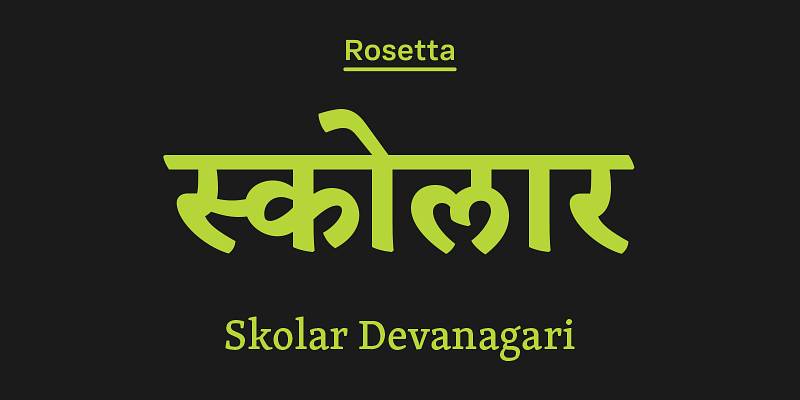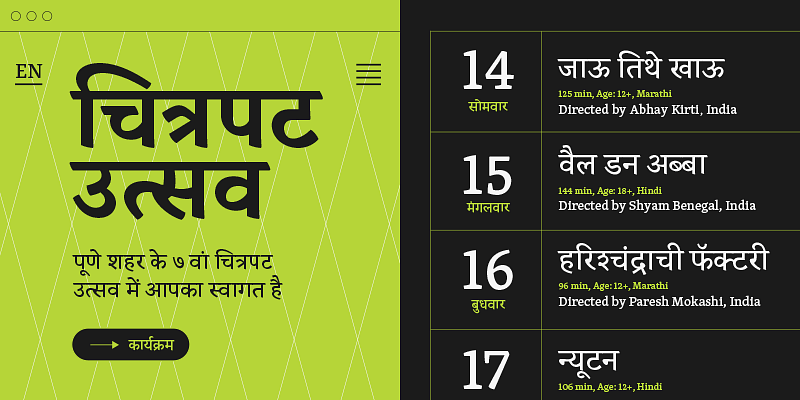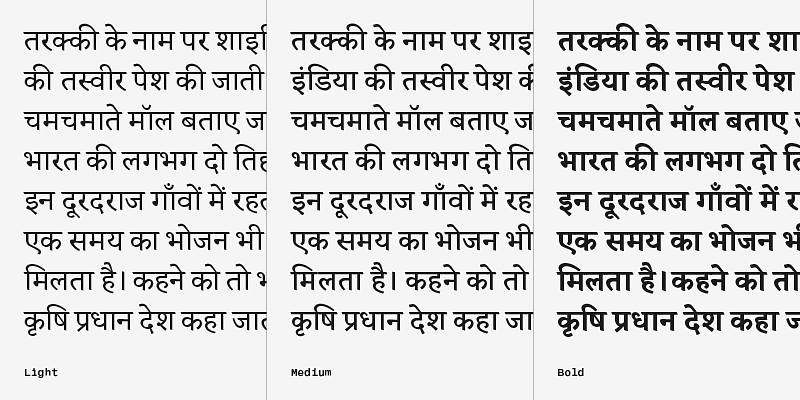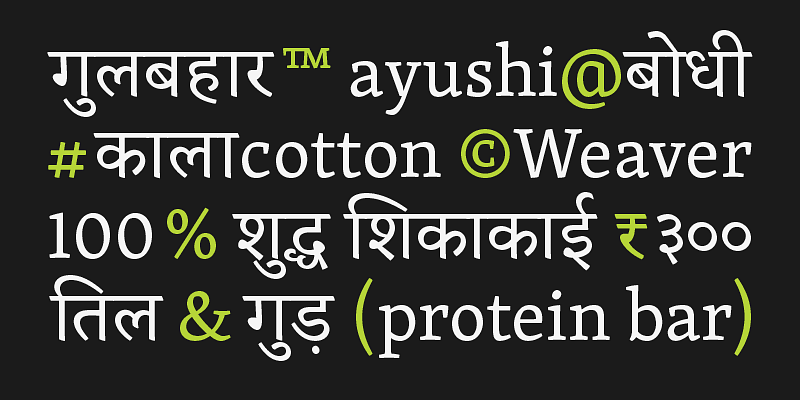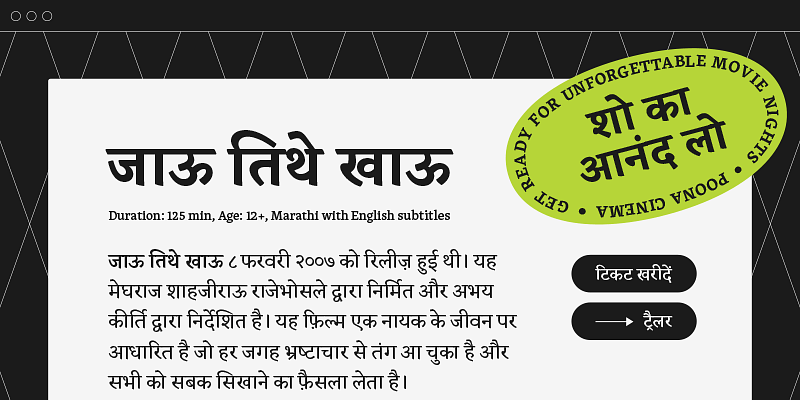
Skolar Devanagari is a full-featured text typeface designed to handle the rigors of academic and scholarly typography in more than 30 Indian languages. It delivers Skolar’s serious typographic aptitude with a twist of personal style, but devised for the needs of Devanagari typesetting.